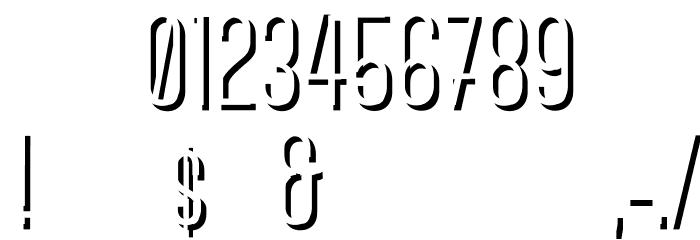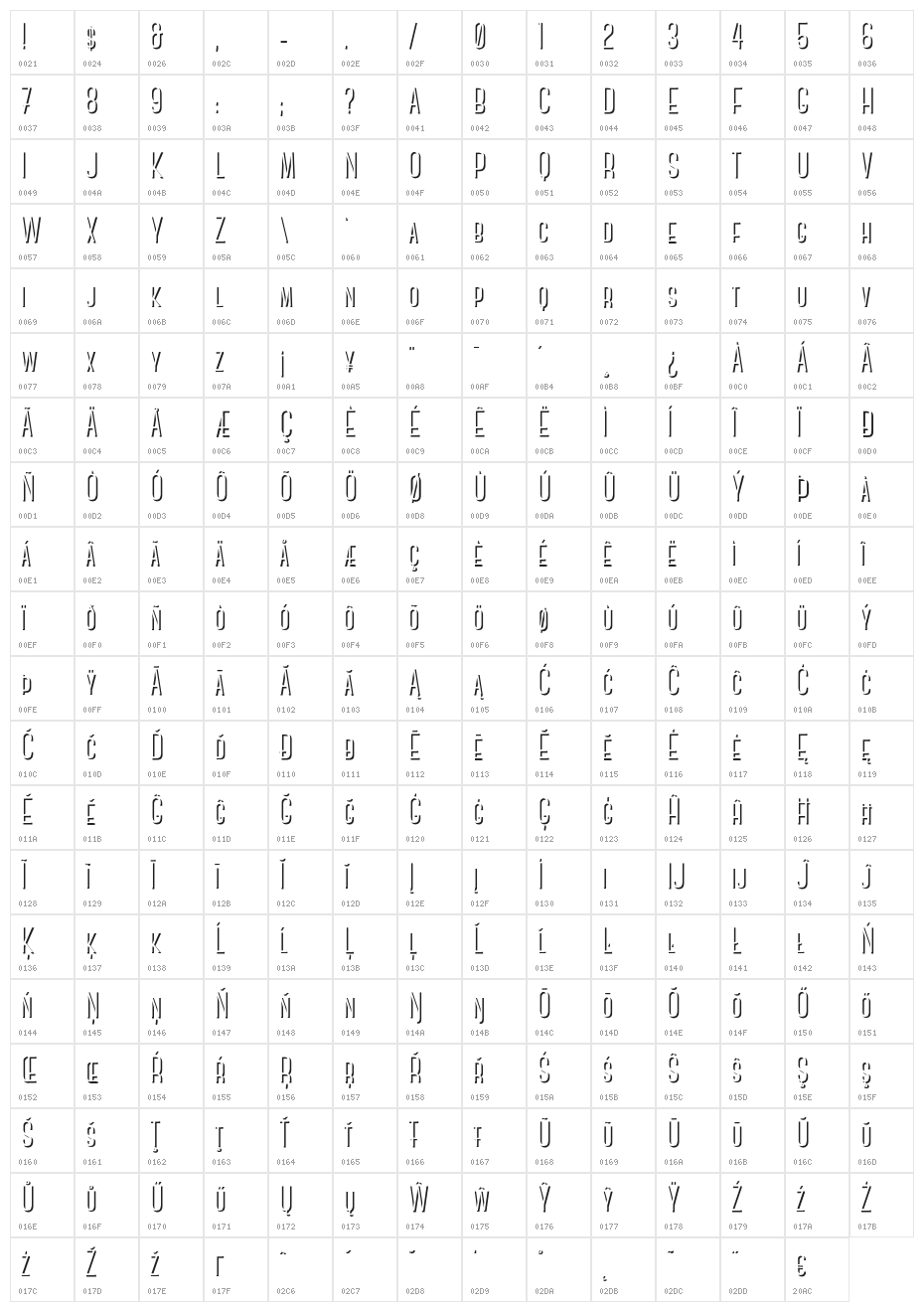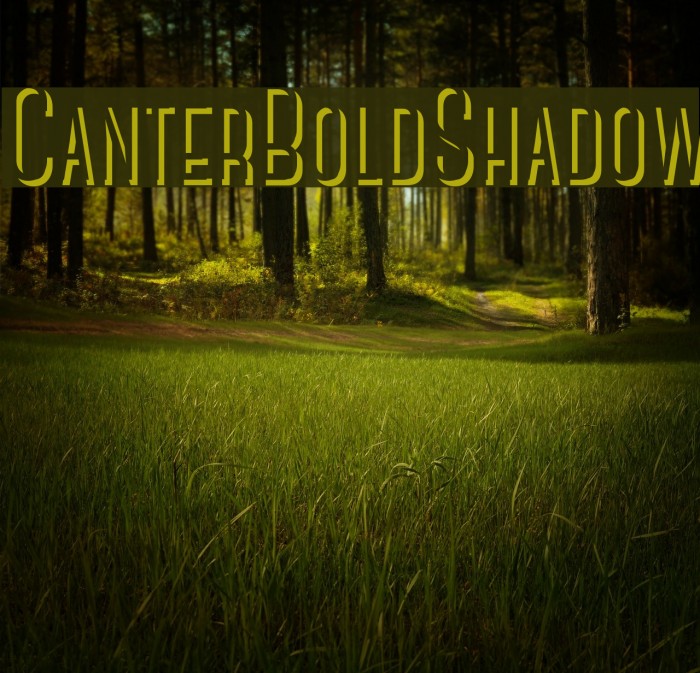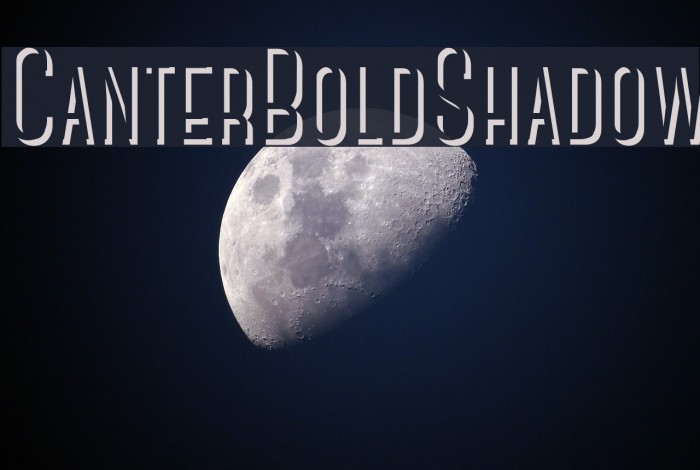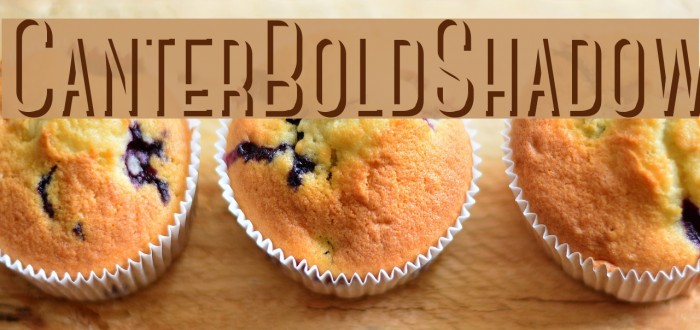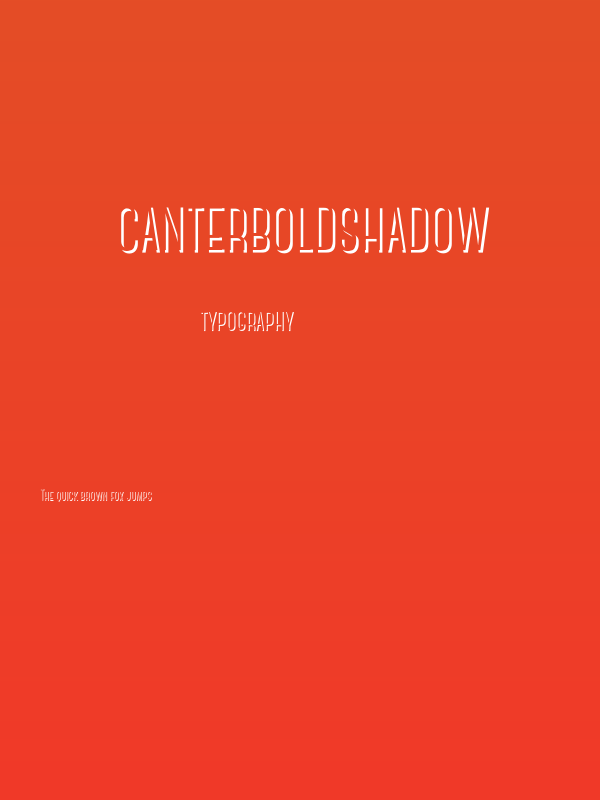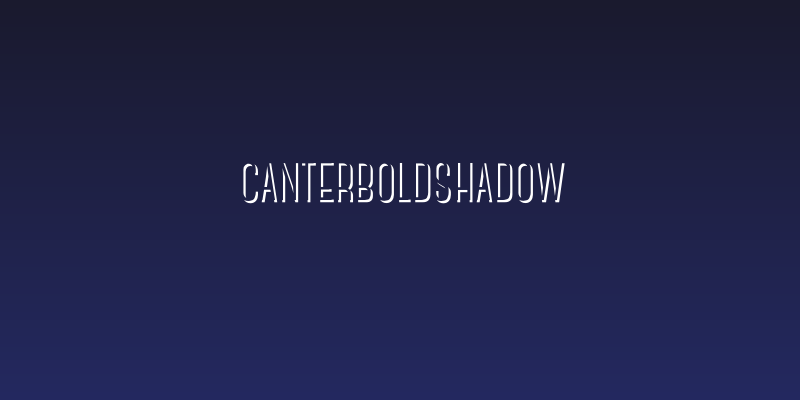
CanterBoldShadow Font
CanterBoldShadow Description
This font features a bold, shadowed style that gives it a striking and dynamic appearance. The uppercase and lowercase letters are designed with a consistent shadow effect, creating a sense of depth and dimension. The characters are tall and narrow, with clean, straight lines that enhance their modern and sleek look. The numerals and special characters maintain the same shadowed style, ensuring uniformity across all glyphs. This font's unique shadow effect makes it stand out, adding a layer of visual interest to any design.
Proposed ProjectsIdeal for posters, headlines, branding, and any project requiring a bold and eye-catching typeface.